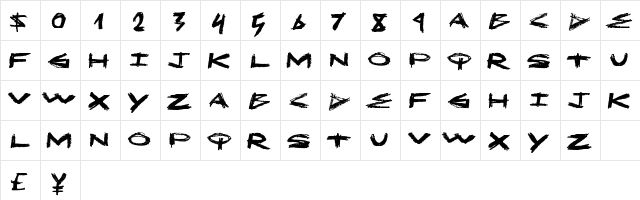
MakeOut Regular
| Foundry | Xerographer Fonts |
| Designer | Xerographer Fonts Max Infeld |
Design Context for MakeOut Typeface
MakeOut is a composed and adaptable typeface that performs quietly and consistently across a wide range of design contexts.